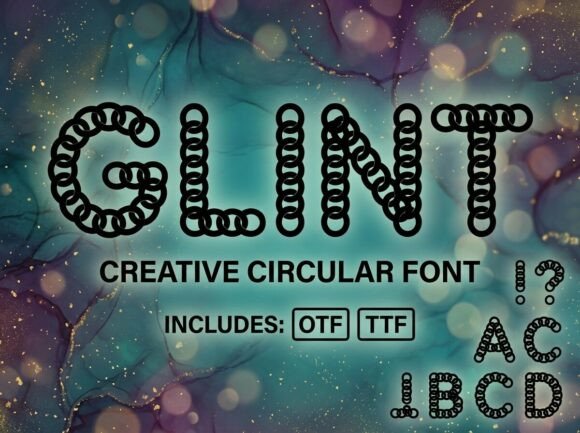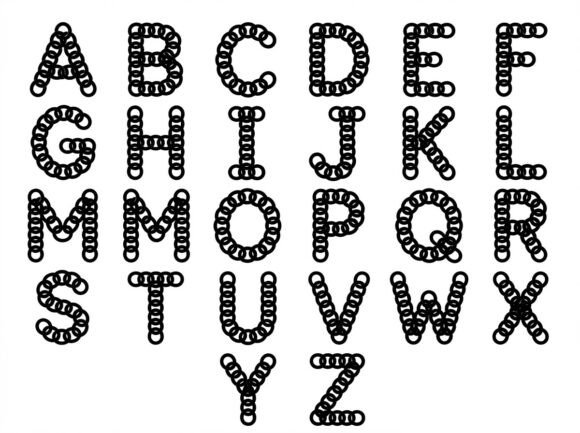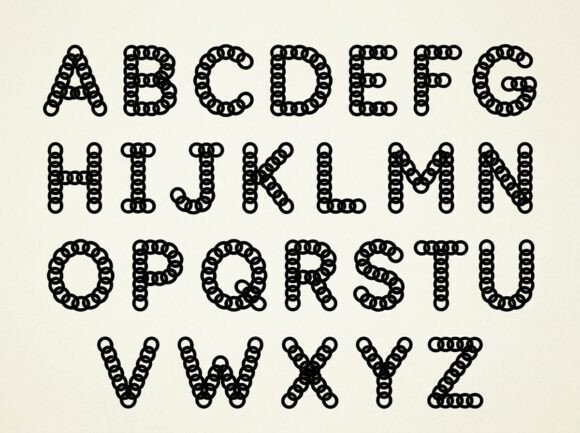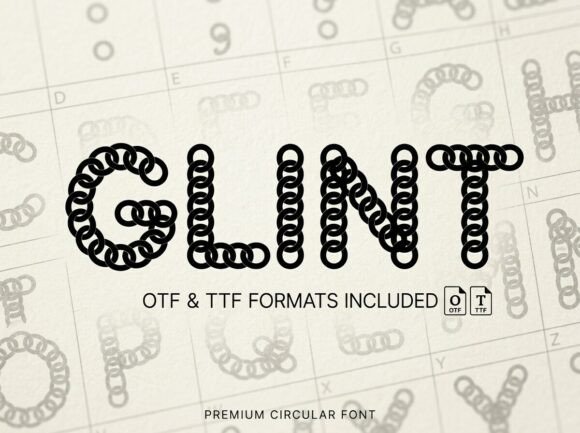
Introducing Glint Font: The Ultimate Decorative Display Font
Are you tired of using the same old fonts for your designs? Look no further than Glint Font, a stunning decorative display font that’s sure to turn heads. With its unique artistic elements and strong visual personality, this font is perfect for creators who want to break away from the ordinary and make a statement.
What Makes Glint Font Special?
Glint Font is a versatile font that’s designed to be the center of attention. Its unique artistic elements and strong visual personality make it perfect for a variety of design projects, from bold headlines and artistic logos to creative packaging. Whether you’re a graphic designer, artist, or crafter, this font is sure to elevate your work and give it a professional and polished finish.
Before you purchase Glint Font, it’s essential to note that this font is an ALL-CAPS (Uppercase Only) display typeface. This means it does not include lowercase letters, and is specifically designed for high-impact headlines, logos, and decorative initials where every letter is a work of art. So, if you’re looking for a font for body text or other applications that require lowercase letters, Glint Font may not be the best choice.
Use Cases for Glint Font
So, what can you use Glint Font for? The possibilities are endless! Here are a few ideas to get you started:
• Headlines and Titles: Use Glint Font to create bold, eye-catching headlines and titles that grab attention and make a statement.
• Logos and Branding: Create a unique and memorable logo for your business or brand with Glint Font.
• Packaging and Product Design: Add a touch of elegance and sophistication to your packaging and product design with Glint Font.
• Art and Illustration: Use Glint Font to add a decorative touch to your art and illustrations.
Tips for Using Glint Font
Here are a few tips for getting the most out of Glint Font:
• Use it sparingly: Because Glint Font is a decorative font, it’s best to use it sparingly to avoid overwhelming your design.
• Experiment with colors and textures: Glint Font looks great in a variety of colors and textures, so don’t be afraid to experiment and find the perfect combination for your design.
• Pair it with a simple font: For body text and other applications, pair Glint Font with a simple font to create contrast and visual interest.
Glint Font is a stunning decorative display font that’s perfect for creators who want to break away from the ordinary and make a statement. With its unique artistic elements and strong visual personality, this font is sure to elevate your designs and give them a professional and polished finish. So why wait? Purchase Glint Font today and start creating stunning designs that turn heads!